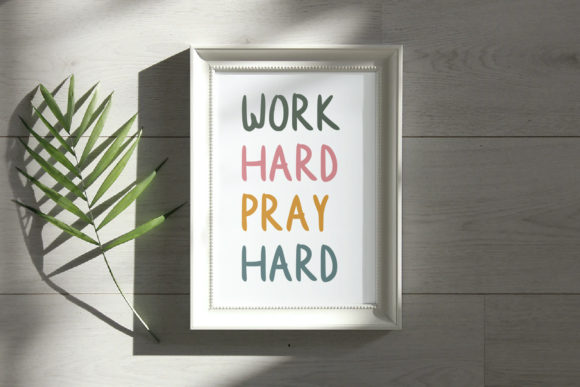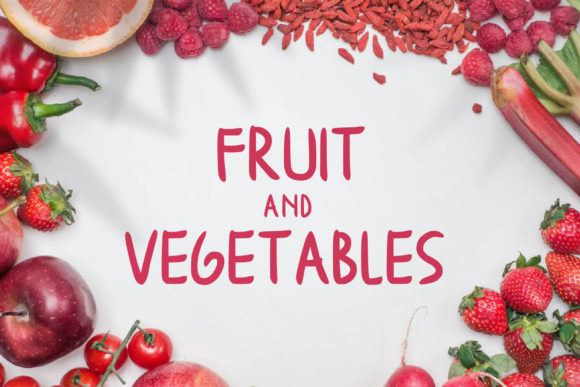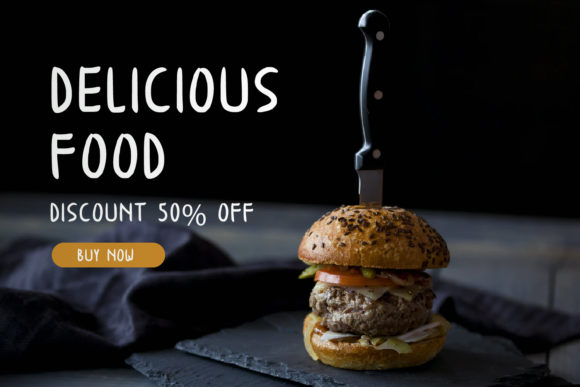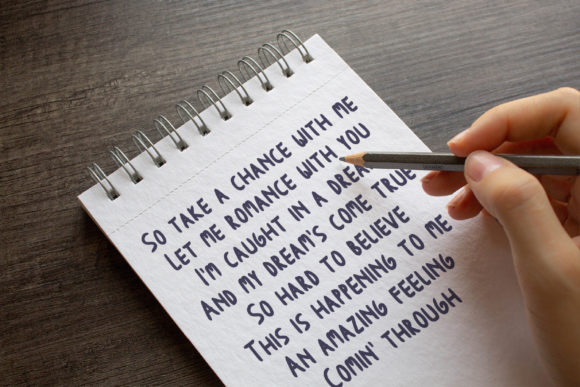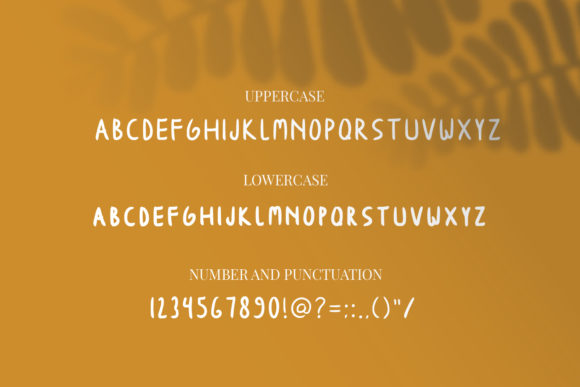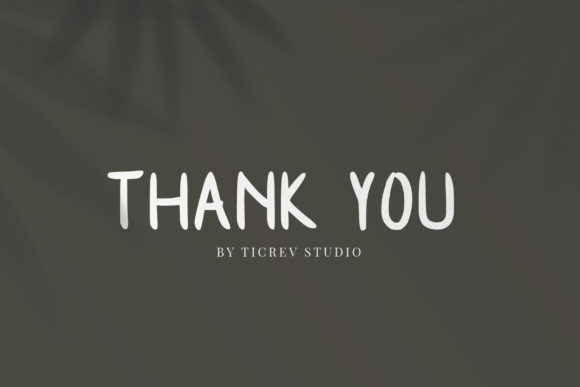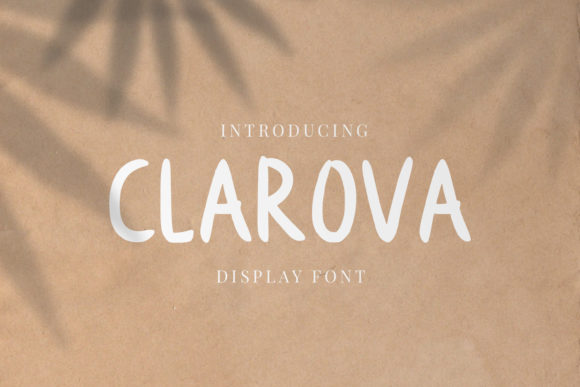
Introducing Clarova Font: The Cute and Friendly Display Font You Need
Are you tired of using the same old fonts in your designs? Look no further than Clarova Font, a charming and approachable display font that’s perfect for adding a touch of personality to your projects. In this article, we’ll dive into the world of Clarova Font and explore its features, benefits, and uses.
What is Clarova Font?
Clarova Font is a cute and friendly display font designed to make your designs stand out. With its playful and approachable style, it’s perfect for use in a variety of contexts, from busy backgrounds to standalone headlines. Whether you’re a designer, crafter, or DIY enthusiast, Clarova Font is sure to become a favorite in your toolkit.
Features of Clarova Font
- Cute and Friendly Style: Clarova Font has a unique and charming style that’s sure to capture the attention of your audience.
- Versatile: This font is perfect for use in a variety of contexts, from digital designs to print projects.
- Easily Readable: Despite its playful style, Clarova Font is easy to read, making it perfect for use in headlines, titles, and other applications where legibility is key.
- High-Quality Design: Clarova Font is designed with high-quality craftsmanship in mind, ensuring that it looks amazing in any context.
Benefits of Using Clarova Font
So why should you choose Clarova Font for your next project? Here are just a few benefits of using this amazing display font:
- Adds Personality to Your Designs: Clarova Font is the perfect way to add a touch of personality to your designs, setting them apart from the crowd.
- Perfect for Branding and Marketing: With its cute and friendly style, Clarova Font is perfect for use in branding and marketing materials, such as logos, brochures, and social media graphics.
- Great for Crafters and DIY Enthusiasts: Clarova Font is also perfect for crafters and DIY enthusiasts who want to add a personal touch to their projects, such as handmade cards, scrapbooking, and more.
Using Clarova Font in Your Designs
So how can you use Clarova Font in your designs? Here are a few ideas to get you started:
- Headlines and Titles: Use Clarova Font as a headline or title font to add a touch of personality to your designs.
- Logos and Branding: Clarova Font is perfect for use in logos and branding materials, such as business cards, brochures, and social media graphics.
- Digital Designs: Use Clarova Font in digital designs, such as website headers, social media graphics, and more.
- Print Projects: Clarova Font is also perfect for use in print projects, such as posters, flyers, and other marketing materials.
Tips and Tricks for Getting the Most Out of Clarova Font
Here are a few tips and tricks for getting the most out of Clarova Font:
- Experiment with Different Colors: Clarova Font looks amazing in a variety of colors, so don’t be afraid to experiment and find the perfect hue for your design.
- Use it with Other Fonts: Clarova Font pairs well with other fonts, so try using it with a complementary font to add visual interest to your design.
- Play with Size and Scale: Clarova Font looks amazing in a variety of sizes, so don’t be afraid to experiment with different sizes and scales to find the perfect fit for your design.
In conclusion, Clarova Font is a cute and friendly display font that’s perfect for adding a touch of personality to your designs. With its versatile style, high-quality design, and ease of use, it’s sure to become a favorite in your toolkit. Whether you’re a designer, crafter, or DIY enthusiast, Clarova Font is the perfect choice for your next project.